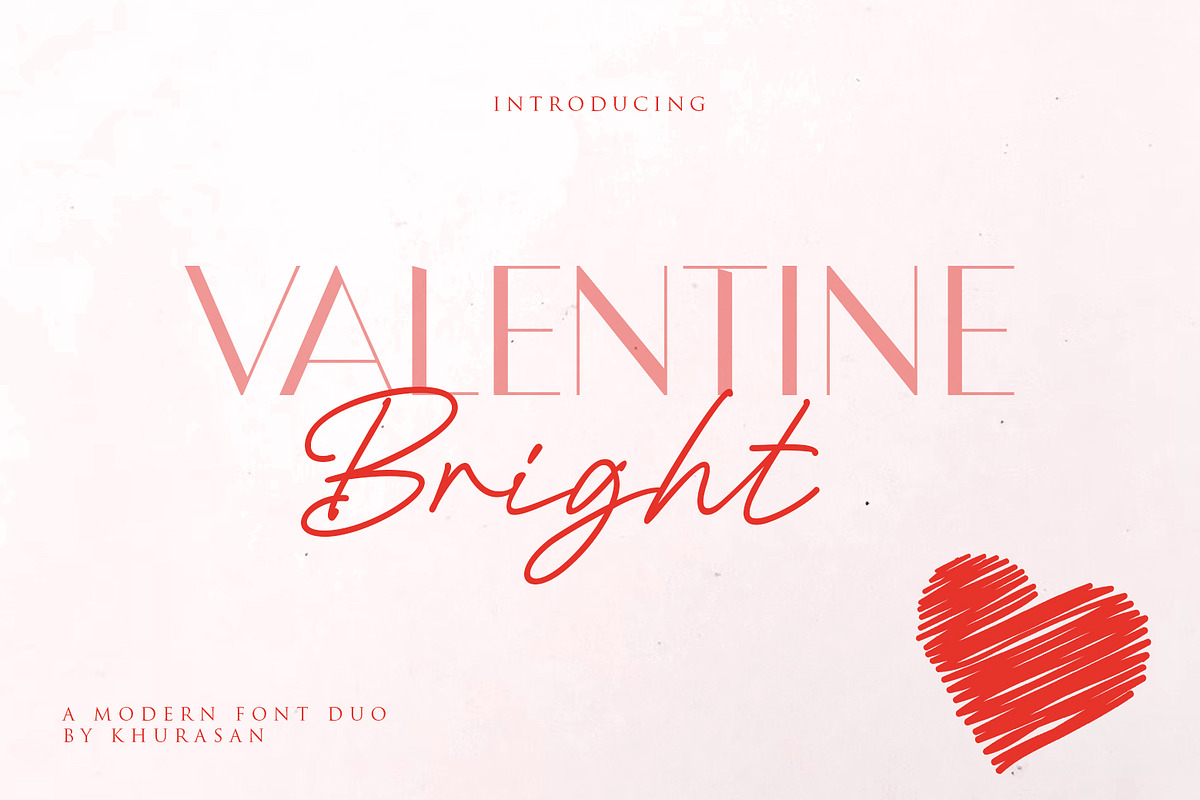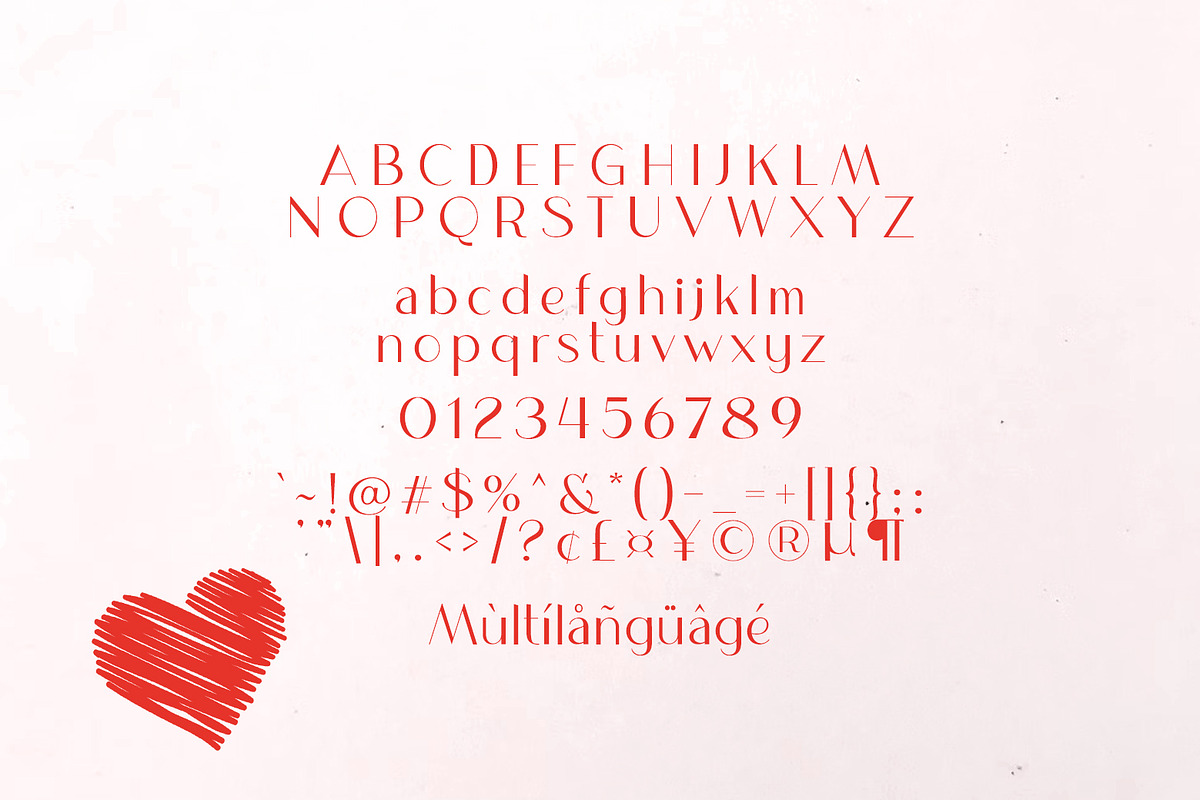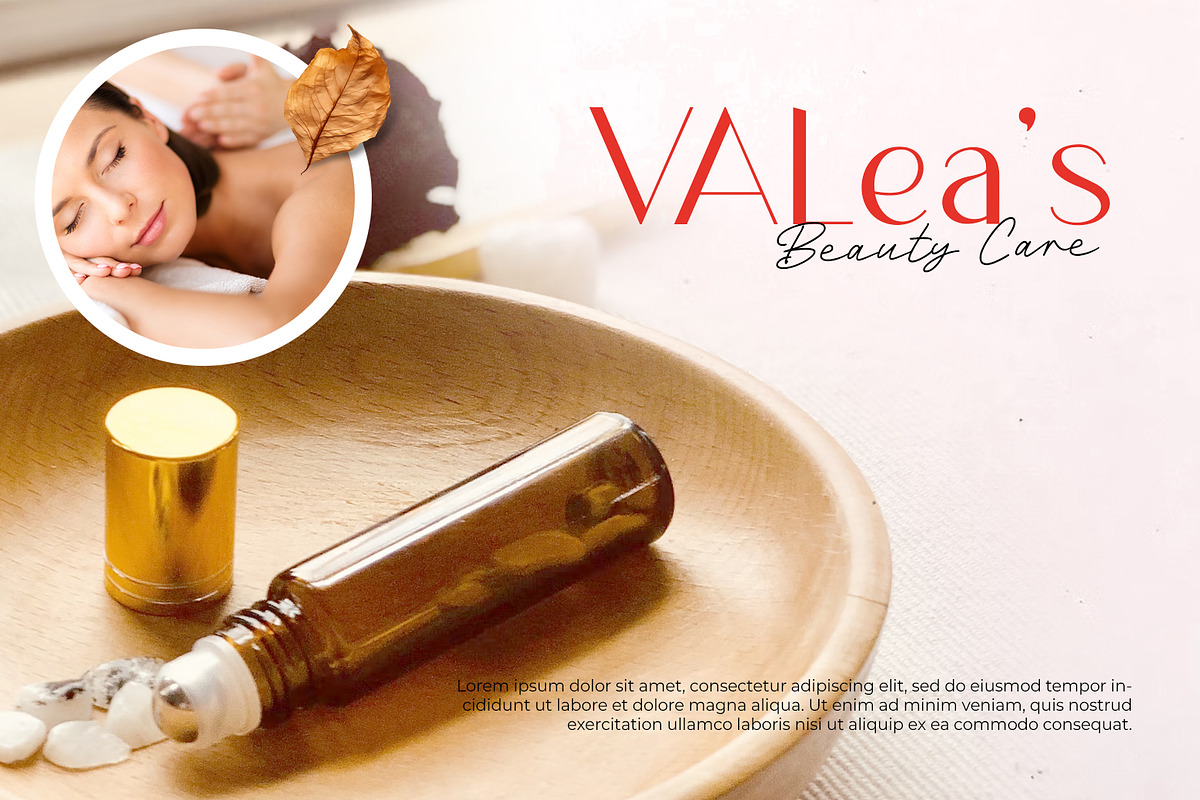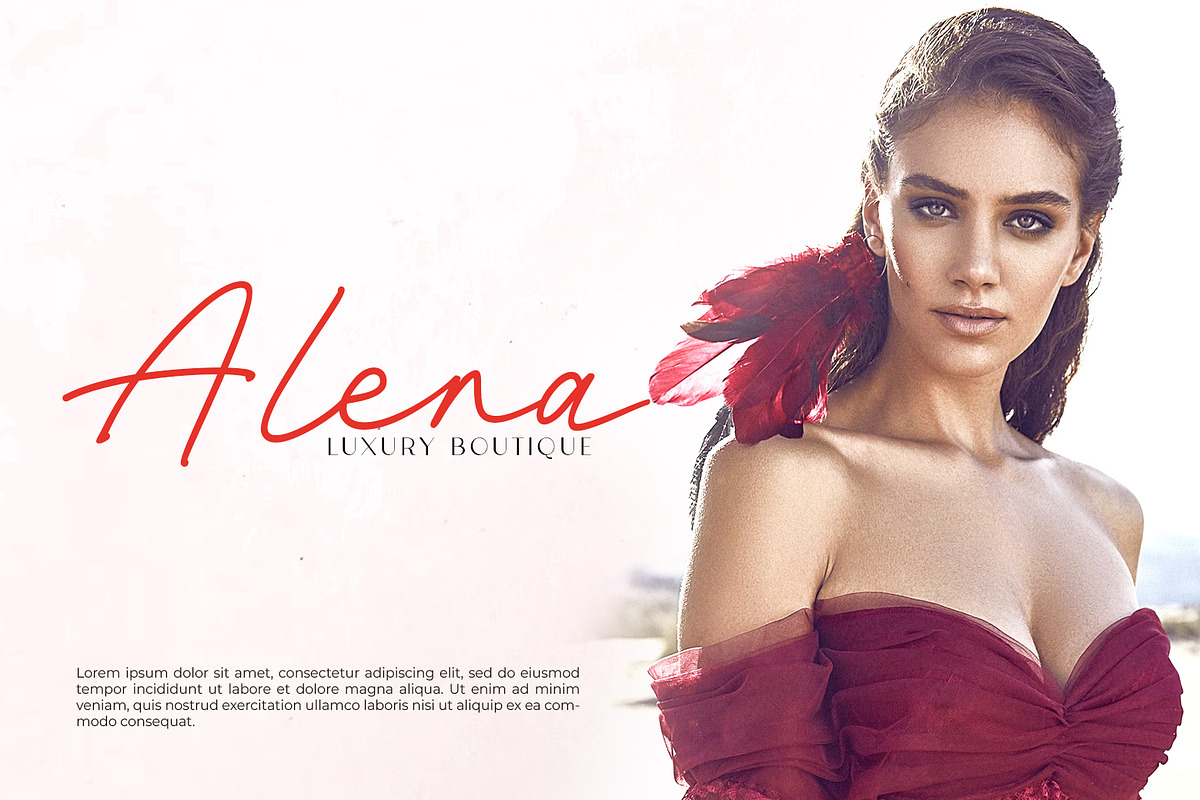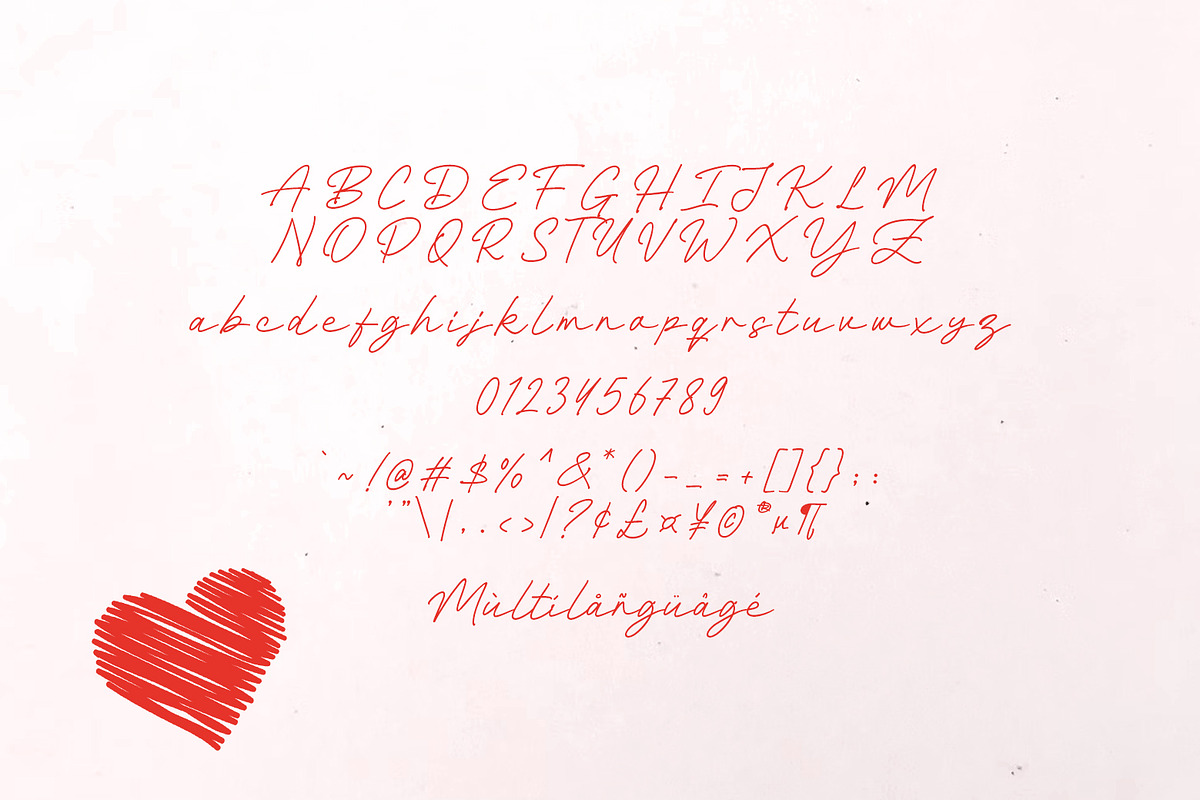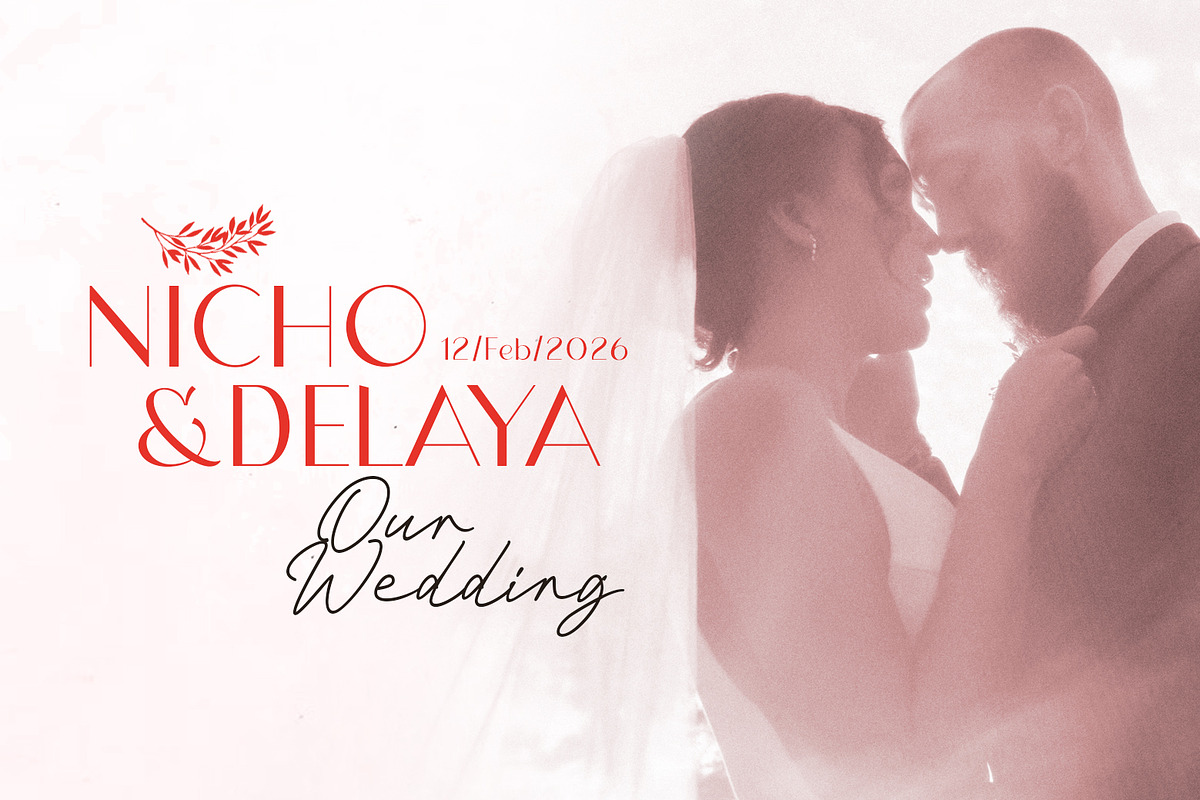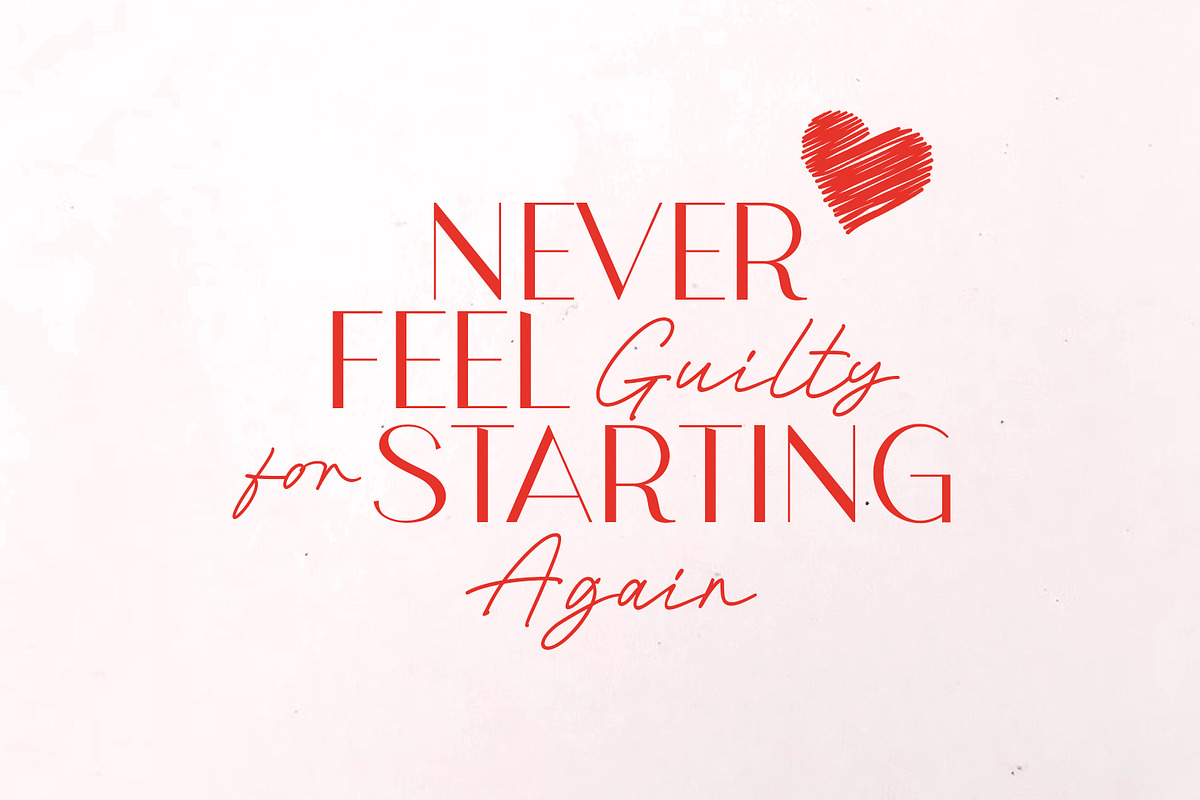
Valentine Bright Font Duo
Introducing Valentine Bright — a romantic font duo designed to capture hearts and tell love stories through letters.
Valentine Bright combines a graceful script that flows like handwritten love notes with a clean, modern serif that brings balance and clarity. Together, they create the perfect harmony between emotion and elegance, making every design feel warm, intimate, and unforgettable.
Whether you're creating wedding invitations, Valentine cards, romantic branding, social media quotes, or love-themed packaging, Valentine Bright adds a touch of passion and charm that instantly connects with the viewer’s heart.
Why you’ll fall in love with Valentine Bright:
- Two beautiful styles in one: romantic script & stylish serif
- Perfect for Valentine’s Day, weddings, love quotes, and heartfelt designs
- Soft, elegant, and full of character
- Makes every word feel personal and meaningful
Let your designs whisper love, smile with sweetness, and shine with romance. With Valen Valentine, every letter becomes a love story.